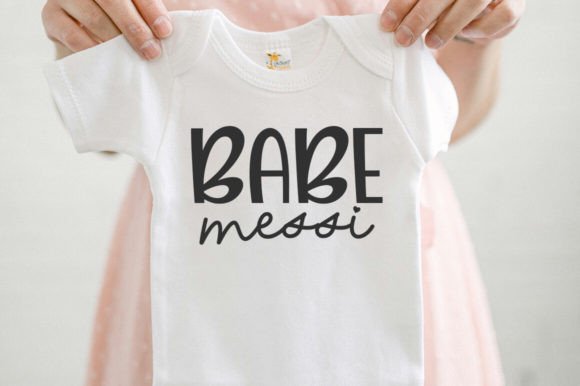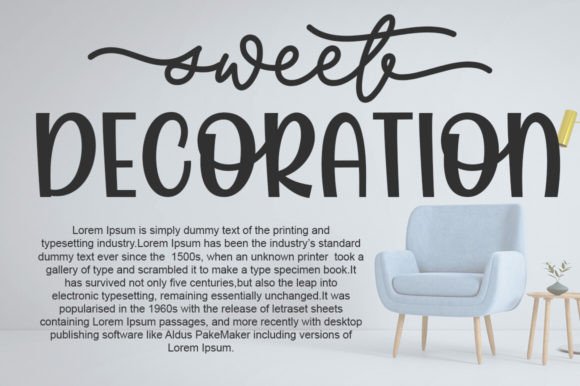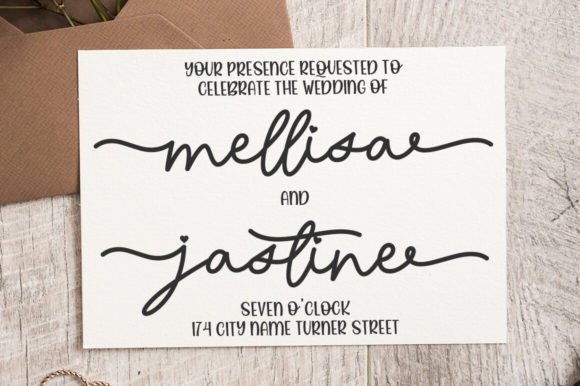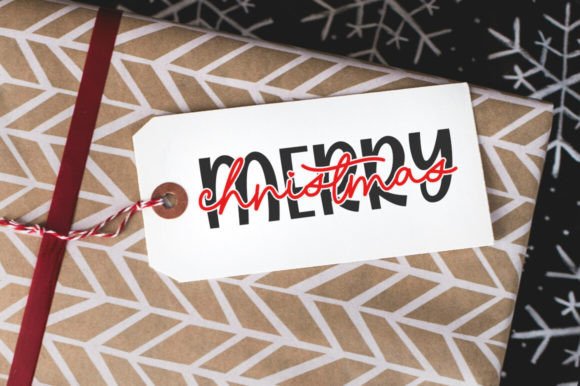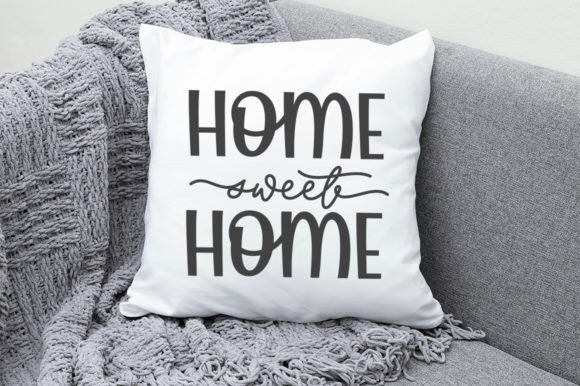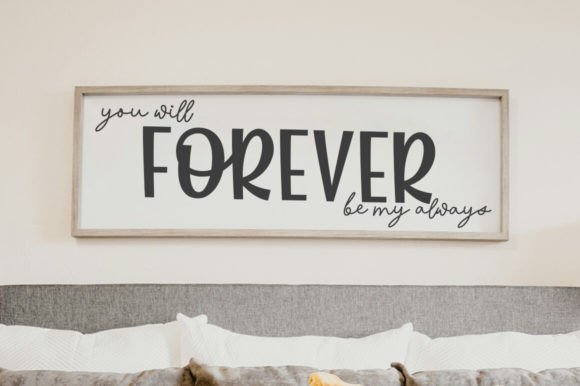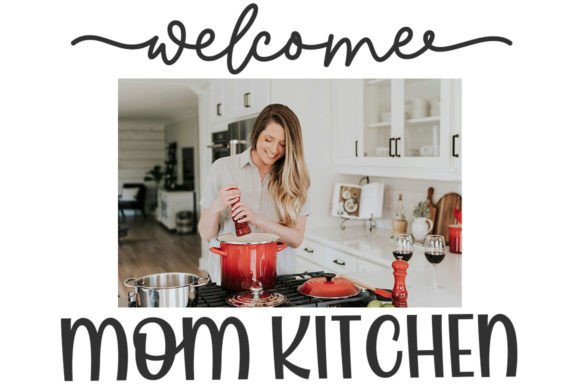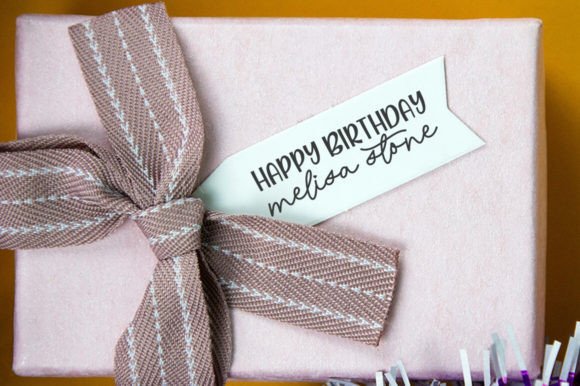
Beauty Sweet Font
Introducing Beauty Sweet, a captivating duo font perfectly paired to add a touch of elegance and charm to your projects. Expertly designed, this font duo is a versatile tool which beautifully enhances quotes, lends a stylish flair to social media content, seamlessly uplifts branding, and gracefully complements packaging and overlays. Embodying elegance and sophistication, Beauty Sweet is also ideal for creating exquisite logo designs and polishing up Instagram quotes, truly transforming and adding a premium touch to every design it graces.